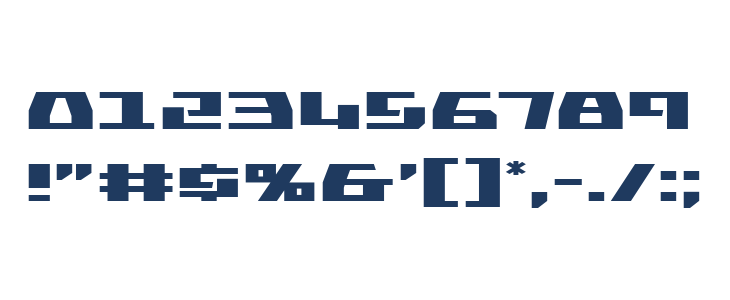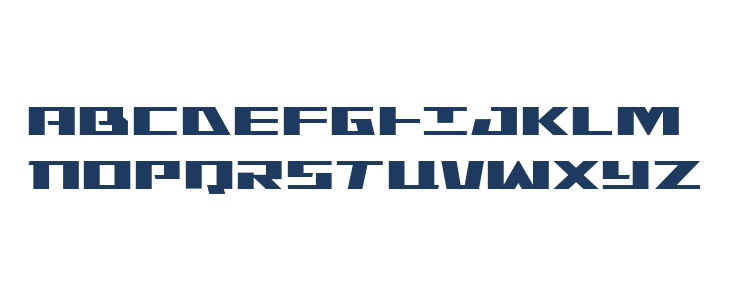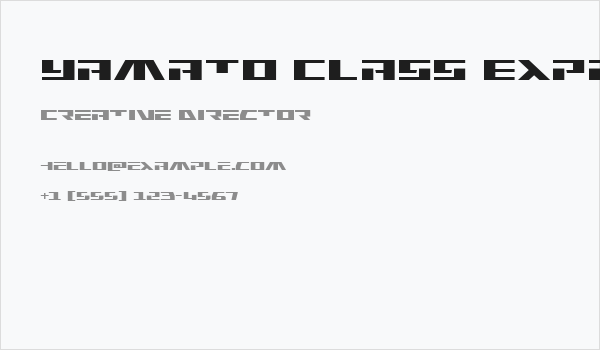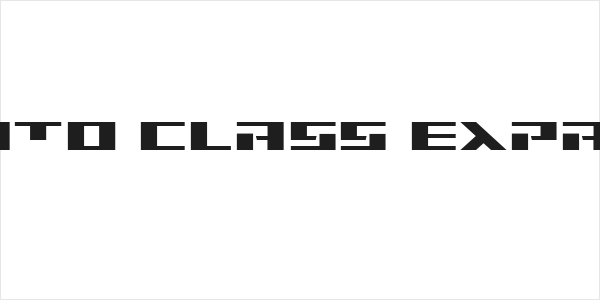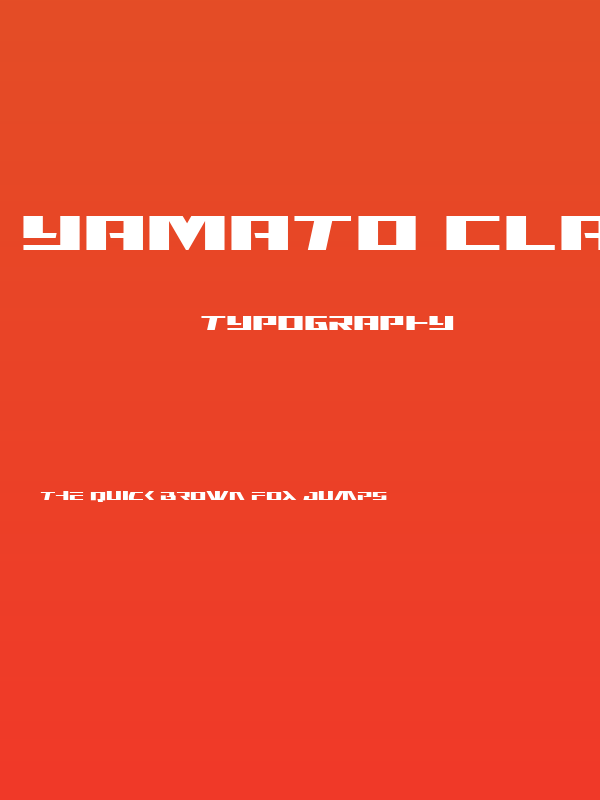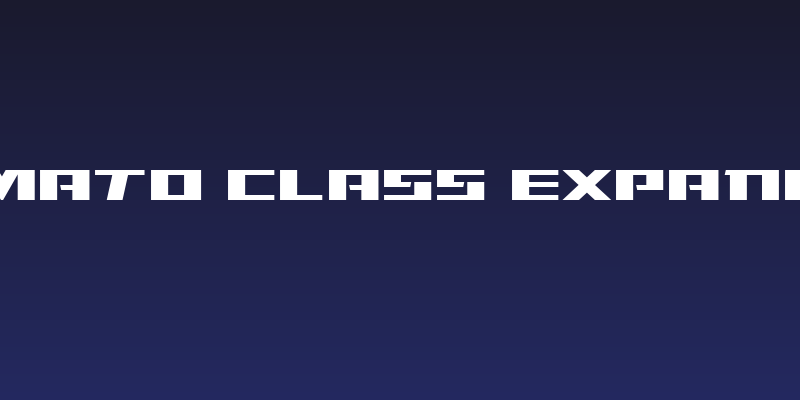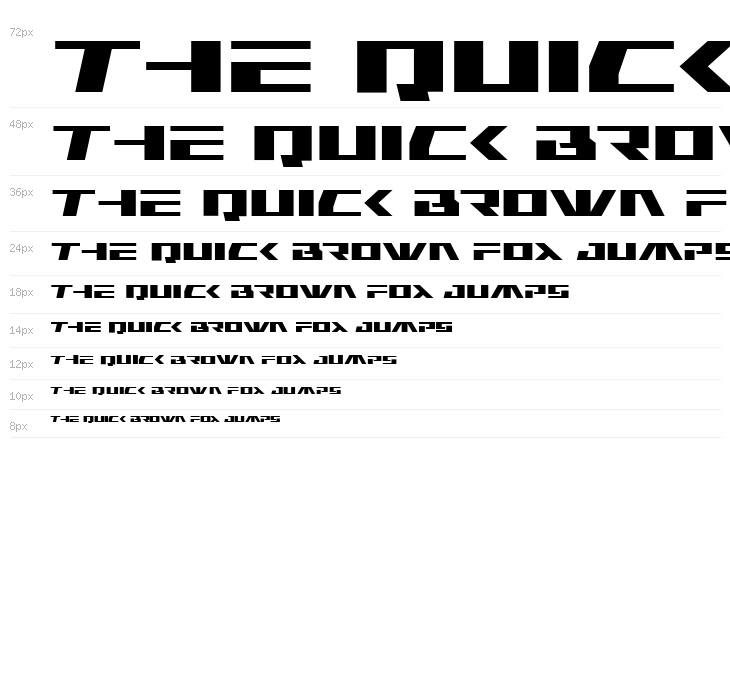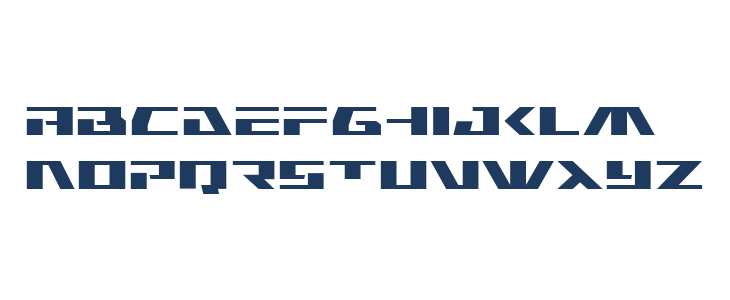
Yamato Class Expanded Font
Yamato Class Expanded Description
A geometric, angular typeface with bold, blocky letterforms and sharp edges, featuring consistent stroke thickness and a futuristic, mechanical appearance. The characters are uppercase only, with a uniform height and minimal curves, emphasizing straight lines and diagonal cuts.
| Overall Style | Futuristic, Mechanical, Decorative |
| Use Case | Headlines, Logos, Posters, Signage |
| Proposed Projects | Video game titles, sci-fi posters, branding for tech companies, event flyers, signage, and logos. |